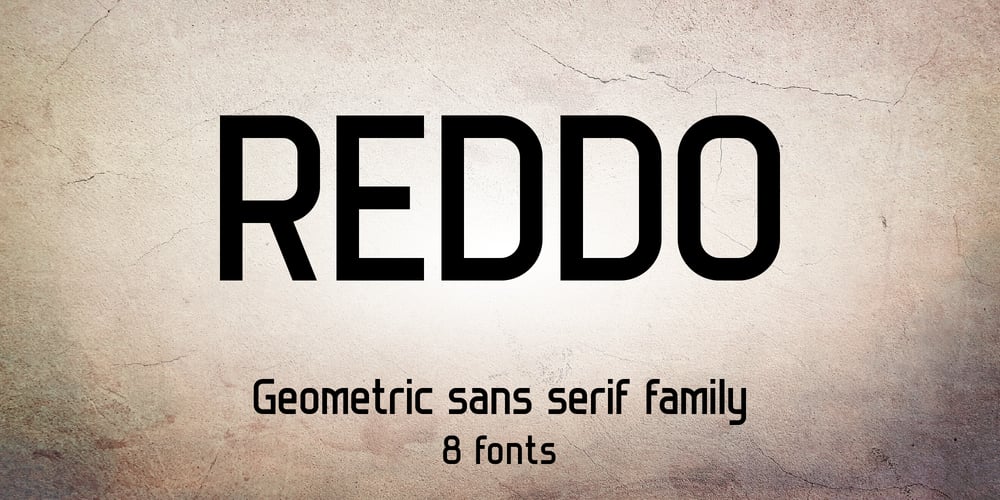
Reddo Font Family was designed by Volodymyr Berla and published by VladB. Reddo contains 8 styles and family package options. Reddo is a modern narrow sans serif geometric font, includes upper and lower case characters, Latin, Cyrillic, Latin Eastern Europe, Turkish, Baltic and other, 500+ symbols.Reddo family consists of 8 fonts, divided into 2 subgroups (according to the type of style – St, Op), and have the 4 types of thickness in each subgroup.Reddo fonts will be useful in developing a brand, creating posters and other graphic products, and for word processing.